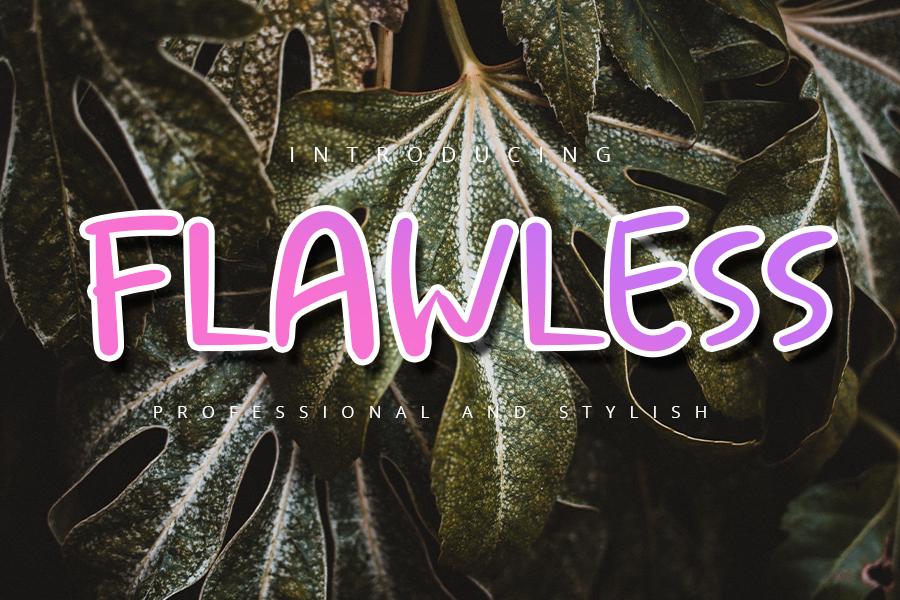
Flawless is a simple and natural display font. It can be used for various purposes such as logos, headings, t-shirts, letterhead, signage, labels, news, posters, badges and so much more.